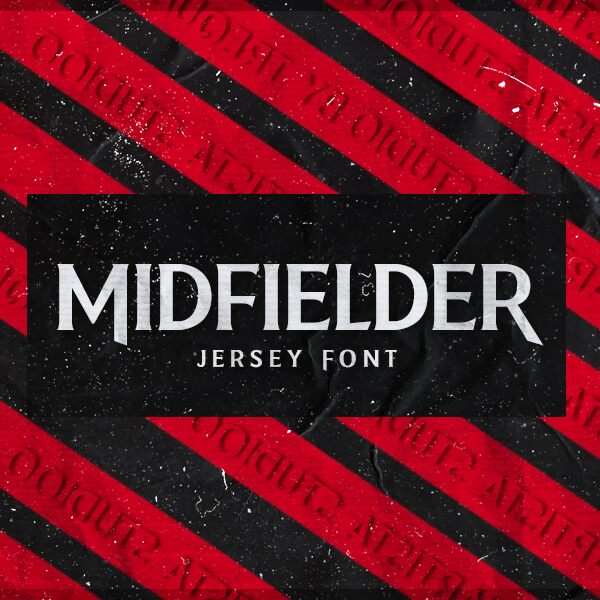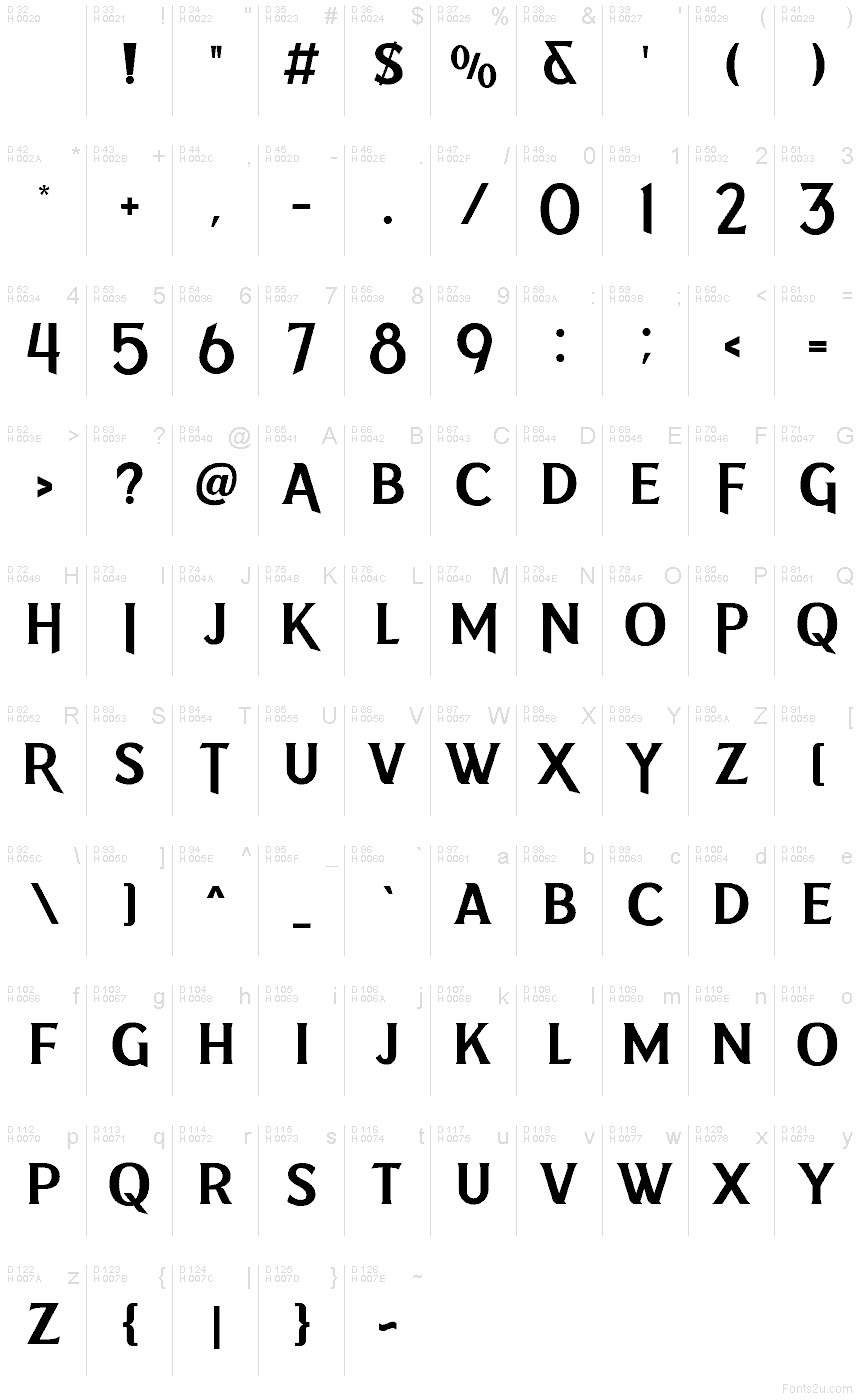
Midfielder font by Trequartista Studio is a strong sans serif font with medium contrast. Inspired by the Manchester United font, it is carefully designed with a short ascender for a solid look. The athletic appearance of this geometric typeface also comes with clean characters and that makes it ideal for branding.
Headers, logos, posters, and sports branding are some excellent use cases of this font family. With its versatile nature, the free sans serif font is suitable just as much for editorial design, packaging (signature and poster), advertising campaigns (both print and digital), magazines/newspapers/website evolutions etc., where distinctive elements benefit combining contemporary style influences within real-world applications!